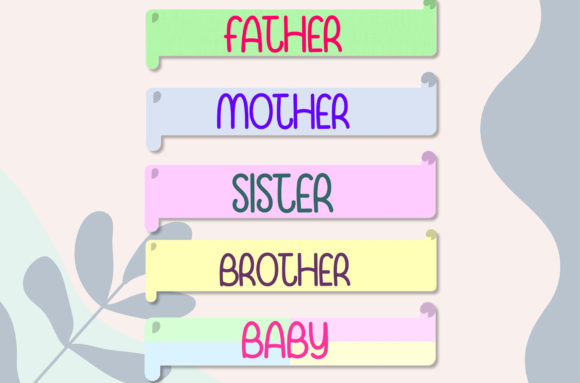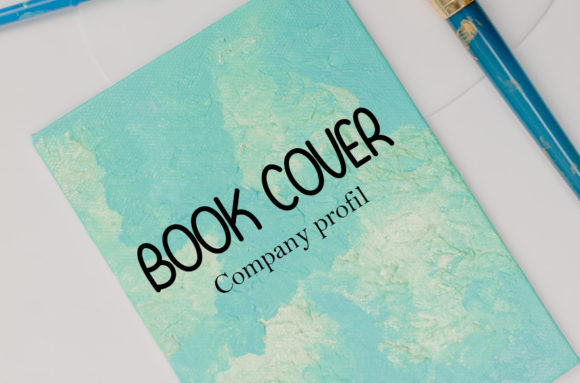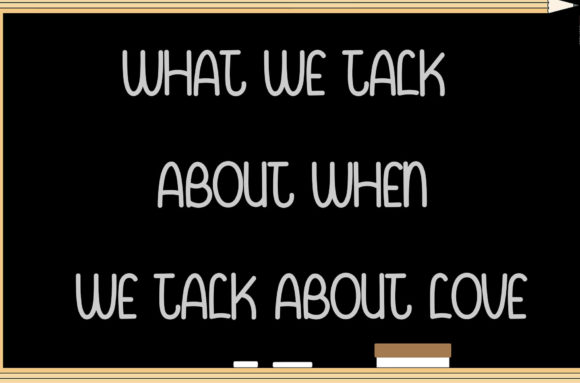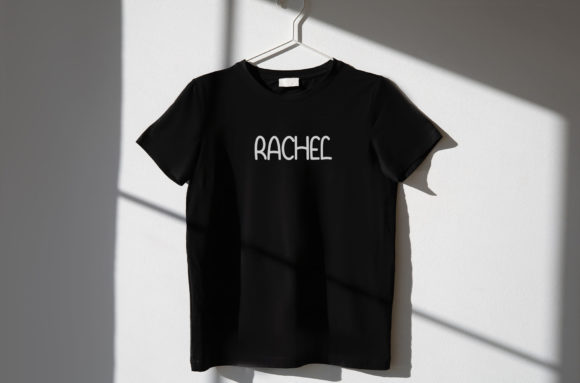
Hello Peanut Font
About Hello Peanut Font
“Hello Peanut” stands out as a bold and retro-styled script font that effortlessly combines a cool flow with well-balanced characters, making it a versatile and engaging typeface for a wide array of design projects.
This font’s bold design and distinctive retro styling make it a striking choice for those seeking a typeface that commands attention and carries a touch of nostalgia. The carefully crafted characters contribute to its balanced and versatile nature, enabling it to complement a diverse range of design applications.
Whether you’re working on branding, posters, or any creative project, “Hello Peanut” injects a sense of boldness and character into your typographic choices. The retro aesthetic it brings adds a unique charm, making it an excellent option for projects that aim to evoke a vintage or throwback vibe.
The cool flow of characters in “Hello Peanut” enhances its visual appeal, creating a dynamic and engaging typographic experience. Each letter is thoughtfully designed to seamlessly integrate with others, ensuring a cohesive and harmonious look across your designs.
More than just a typeface, “Hello Peanut” serves as a design element that makes a statement. Its retro flair and bold personality contribute to a memorable visual identity for your projects, setting them apart from the ordinary.
Incorporate “Hello Peanut” into your design arsenal to infuse your creations with a sense of boldness, retro charm, and a dynamic visual presence. Let this font be the catalyst for creating standout designs that leave a lasting impression on your audience, whether in print, digital media, or any other creative endeavor where a touch of bold, retro style is desired.